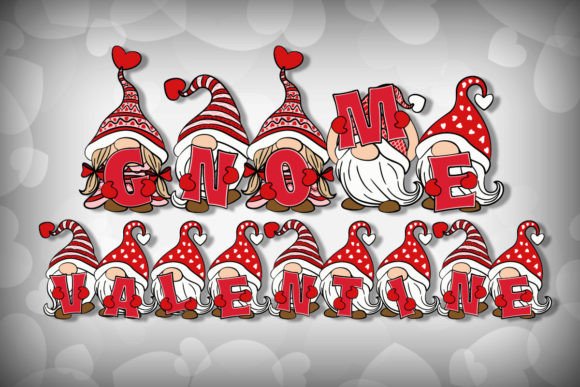
Introducing Gnome Valentine Font, the colorful font family that will instantly add a touch of magic to your design projects! Created by the talented team at Little Lady Design, this font is not just another ordinary font, but a true work of art that will captivate your imagination.
With its vibrant colors and intricate details, Gnome Valentine Font is guaranteed to catch the eye of anyone who lays their eyes on it. Whether you're designing a wall display, wedding invitation, or social media post logo, this font will elevate your creations and make them stand out from the crowd.
Imagine the possibilities that Gnome Valentine Font offers. Its versatility allows you to create stunning advertisements, captivating product packaging, and beautiful product designs that will leave a lasting impression on your audience. The font's playful yet sophisticated style makes it a perfect choice for labels, photography watermarks, invitations, and stationery.
But Gnome Valentine Font is not just about aesthetics. It's about evoking emotions and creating a connection with your audience. The moment someone sees your design featuring this font, they will be transported to a world of warmth, love, and happiness. It's the font that brings a sense of coziness and charm to any project, making it perfect for those who want to create a homely and inviting atmosphere.
What sets Gnome Valentine Font apart from other fonts is its ability to convey a sense of joy and excitement. Its carefully crafted curves and strokes exude a sense of energy and enthusiasm, making it perfect for projects that aim to inspire and uplift.